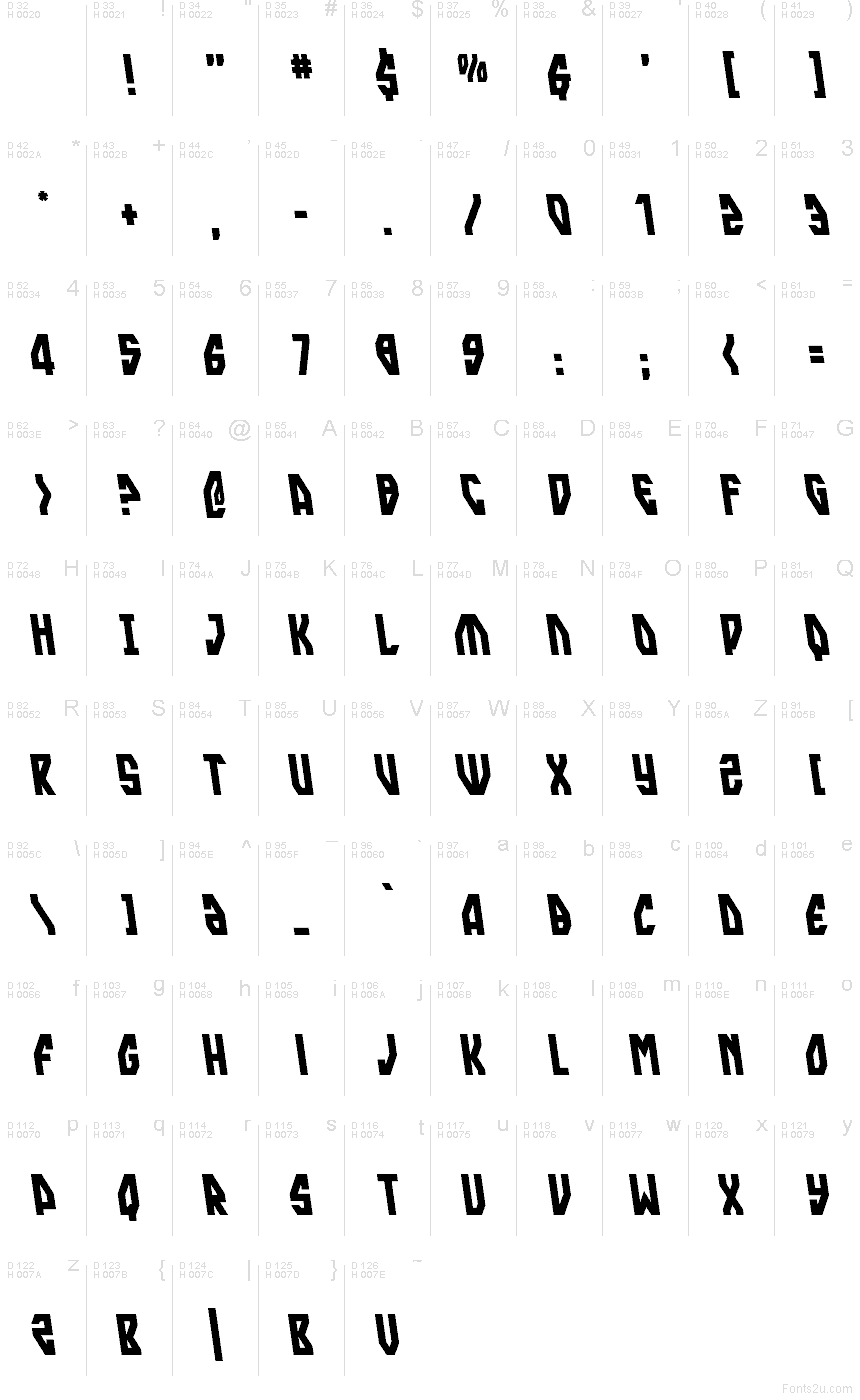
skyrange Leftalic
Skyrange Leftalic font by Daniel Zadorozny of Iconian Fonts from the Skyrange family is a free techno font. Its tall, knife-cut shapes and restless left-leaning energy feel like lettering carved into a starship hull—crisp, tense, and fast. Tight spacing and jagged rhythm keep words looking compact and aggressive without turning muddy.
Using Skyrange Leftalic, you’ll get punchy results on sci‑fi game titles, esports banners, tech posters, album art, futuristic logos, event flyers, and UI section headers. Set it a touch larger and add a hint of tracking for cleaner reads at distance. Pair this free font with a calm neutral sans (like a grotesk) for body copy to let the headline do the shouting.